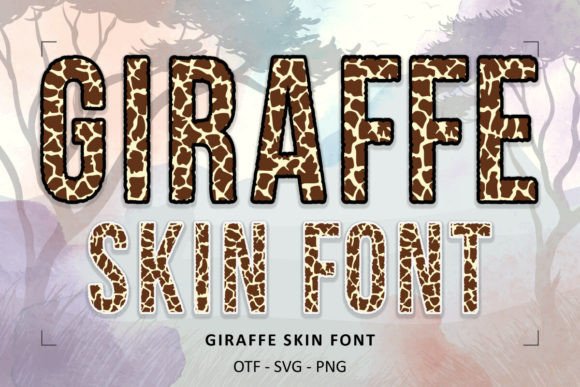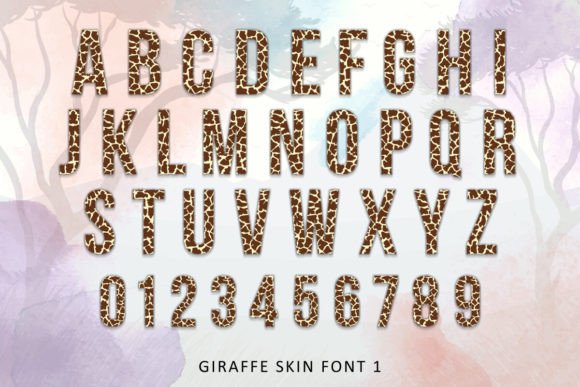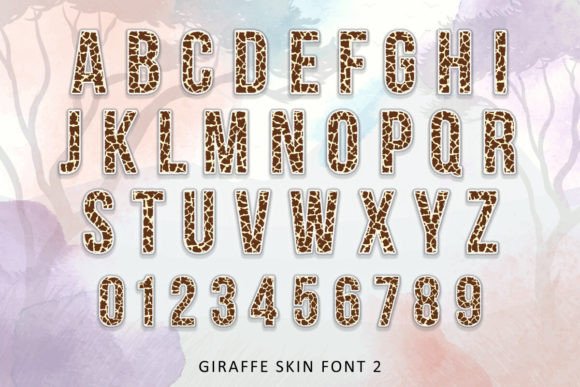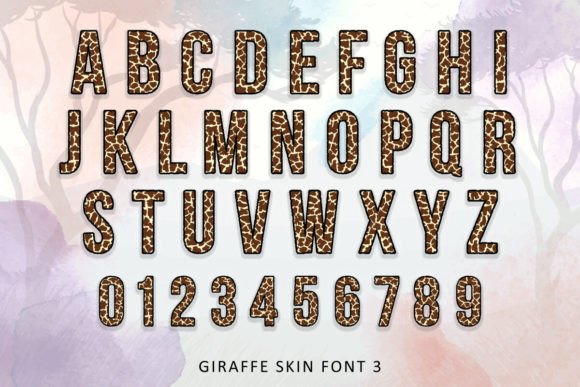
Giraffe Skin Font
About the Giraffe Skin Font
Explore the possibilities with Giraffe Skin Font, a font that offers both beauty and functionality. Giraffe Skin is a captivating font boasting the distinctive pattern of giraffe skin in its design. With its warm tones and unique texture, this font brings a touch of safari-inspired elegance to any project. Perfect for nature-themed designs, branding, and promotional materials, it adds a stylish and exotic flair.
Giraffe Skin excels in applications requiring a bold, yet sophisticated statement. It’s ideal for headlines, logos, short impactful text on packaging or posters, and branding for luxury goods or eco-conscious businesses. Avoid using it for lengthy body copy or UI elements; the unique texture can hinder readability in smaller sizes or extended use.
The font’s inherent elegance pairs well with clean sans-serif fonts like Helvetica Neue for a modern contrast, or a classic serif such as Garamond for a more traditional feel. For a playful touch, consider pairing it with a handwritten script font, but ensure the script’s weight doesn’t overpower Giraffe Skin’s distinctive pattern.
Giraffe Skin projects a confident, nature-inspired personality. Its warmth and distinctive texture make it perfect for brands that want to convey a sense of luxury, adventure, or connection to the natural world.